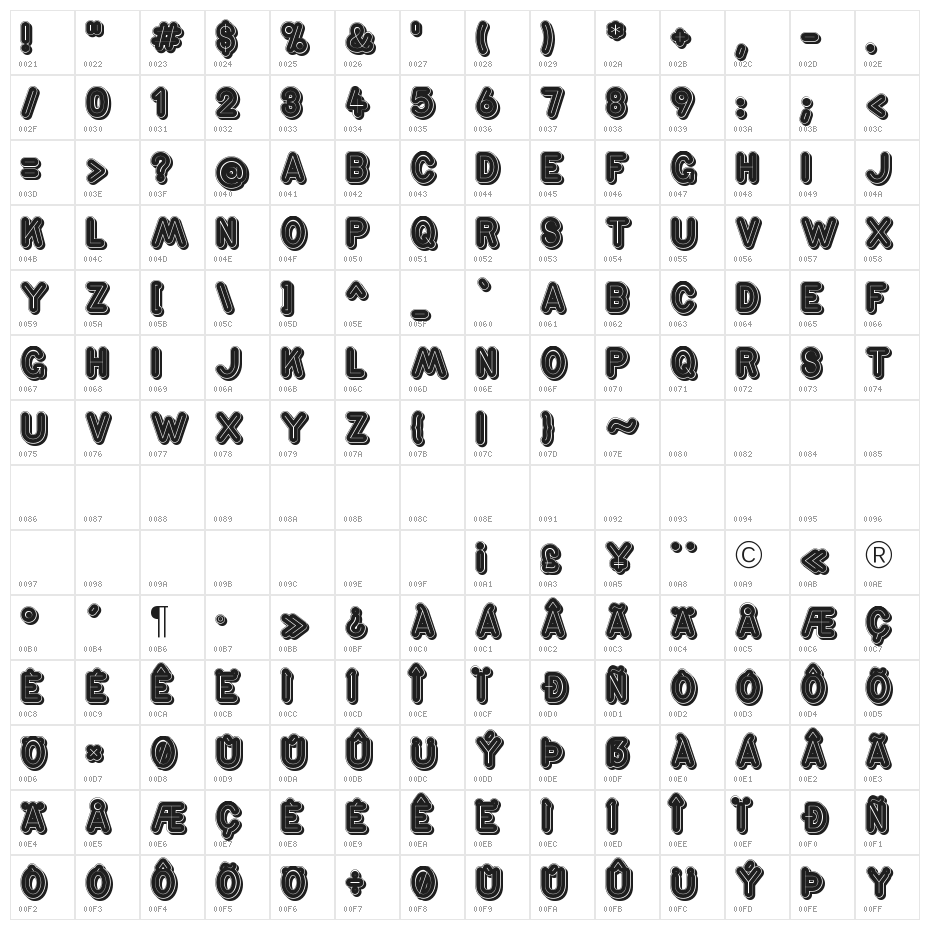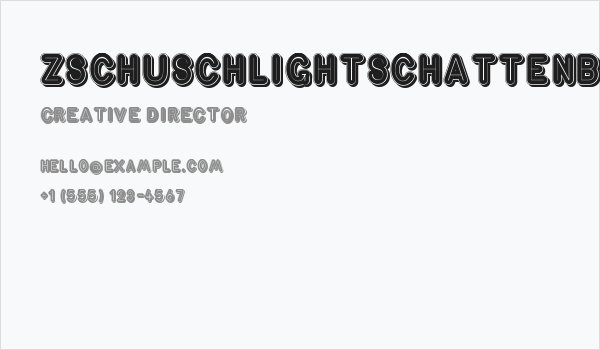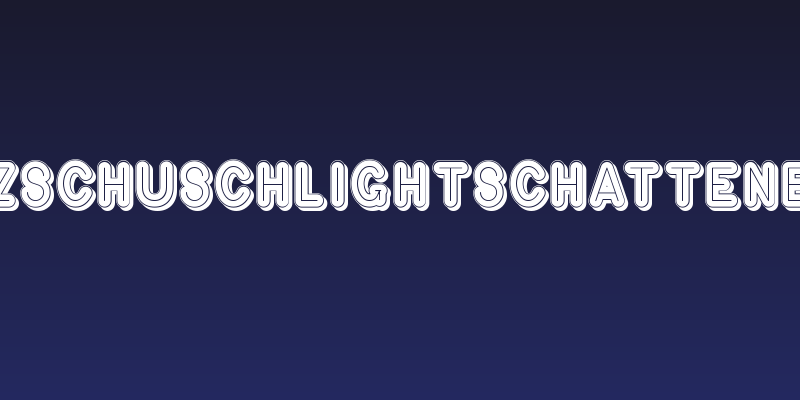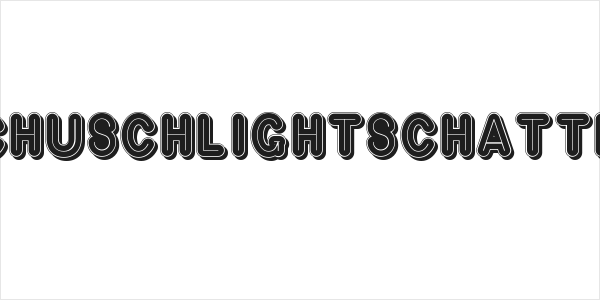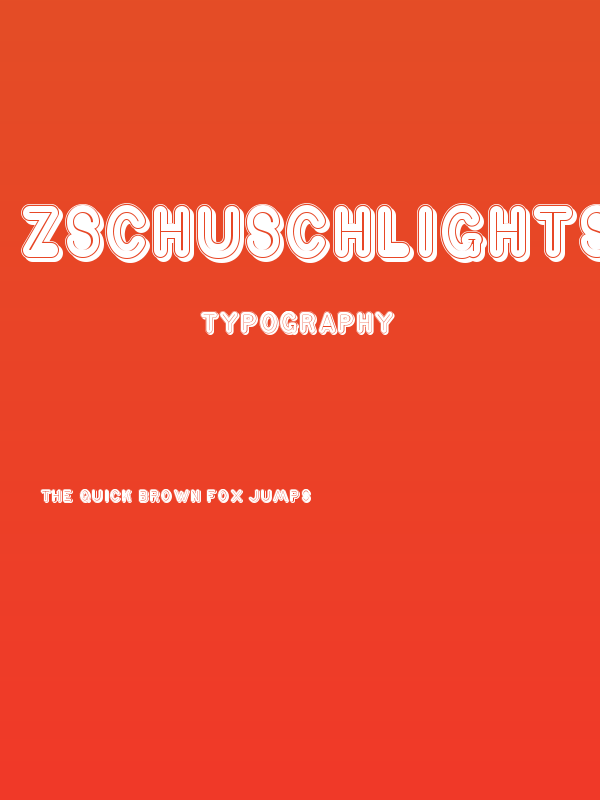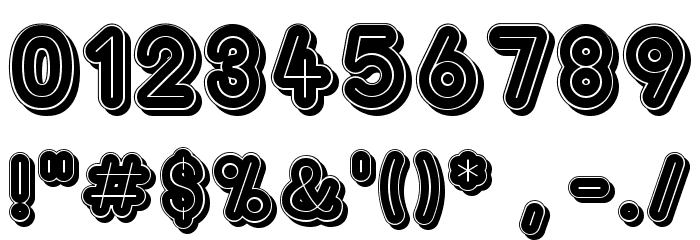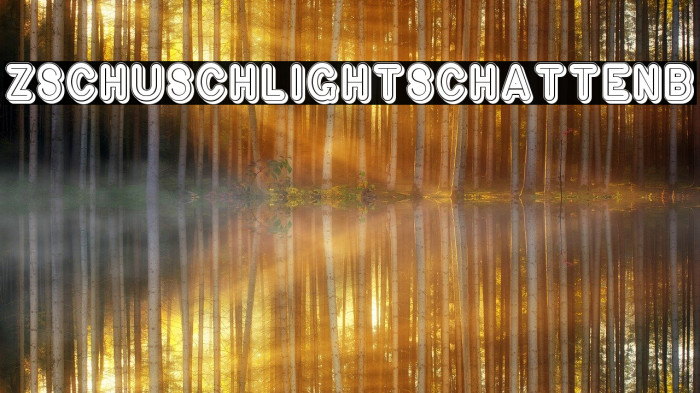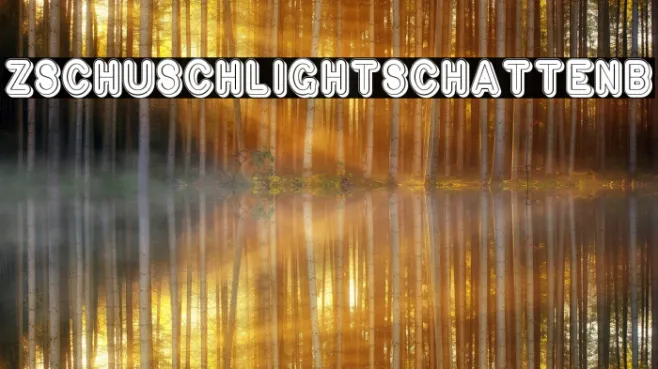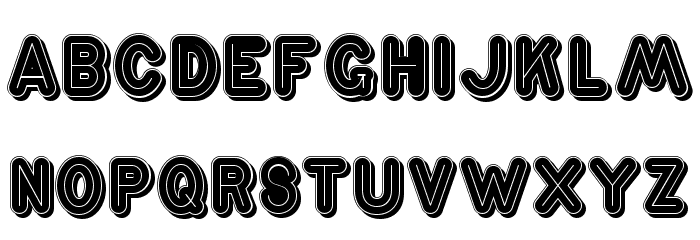
ZschuschLightSchattenB Font
ZschuschLightSchattenB Description
This font features a bold, outlined style with a playful and dynamic appearance. The characters are uppercase and have a shadow effect that gives them a three-dimensional look. The strokes are thick and consistent, providing a strong visual impact. The font is well-suited for attention-grabbing designs due to its decorative and bold nature. The spacing between characters is normal, allowing for clear readability while maintaining its unique style. The numbers and special characters follow the same design principles, ensuring a cohesive look across all elements.
| Proposed Projects | Ideal for posters, headlines, logos, and any design requiring a bold, eye-catching font. |